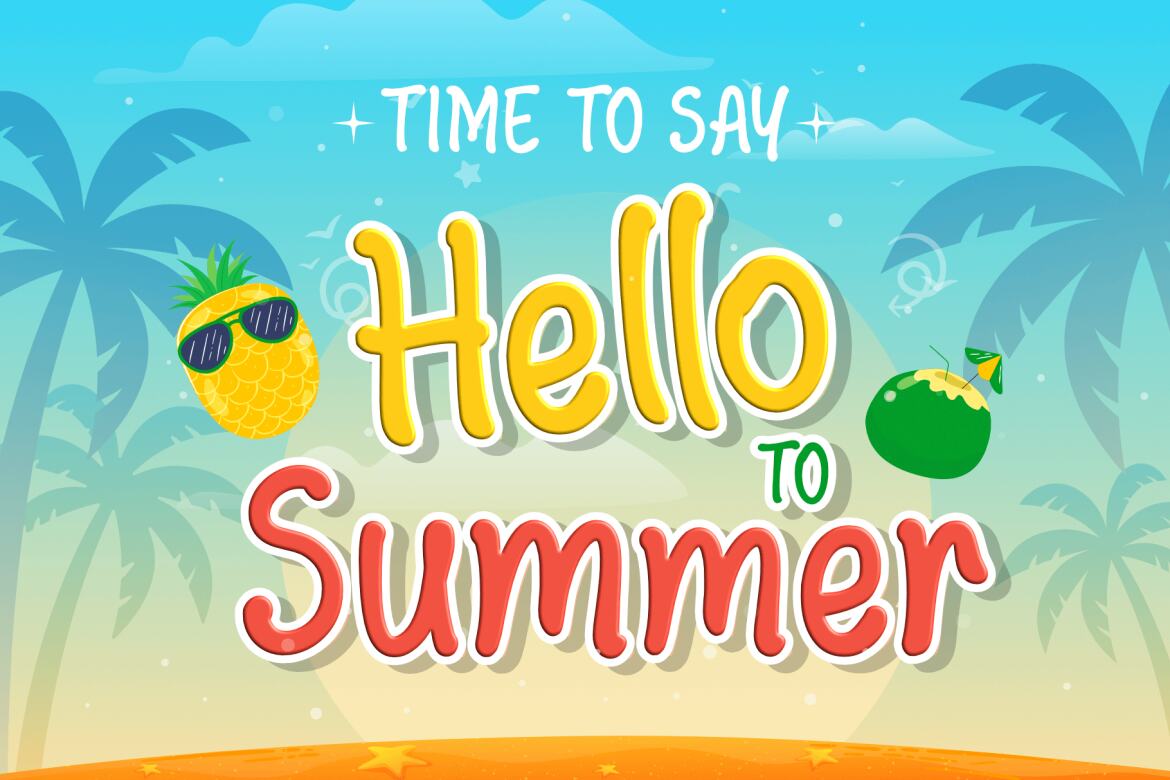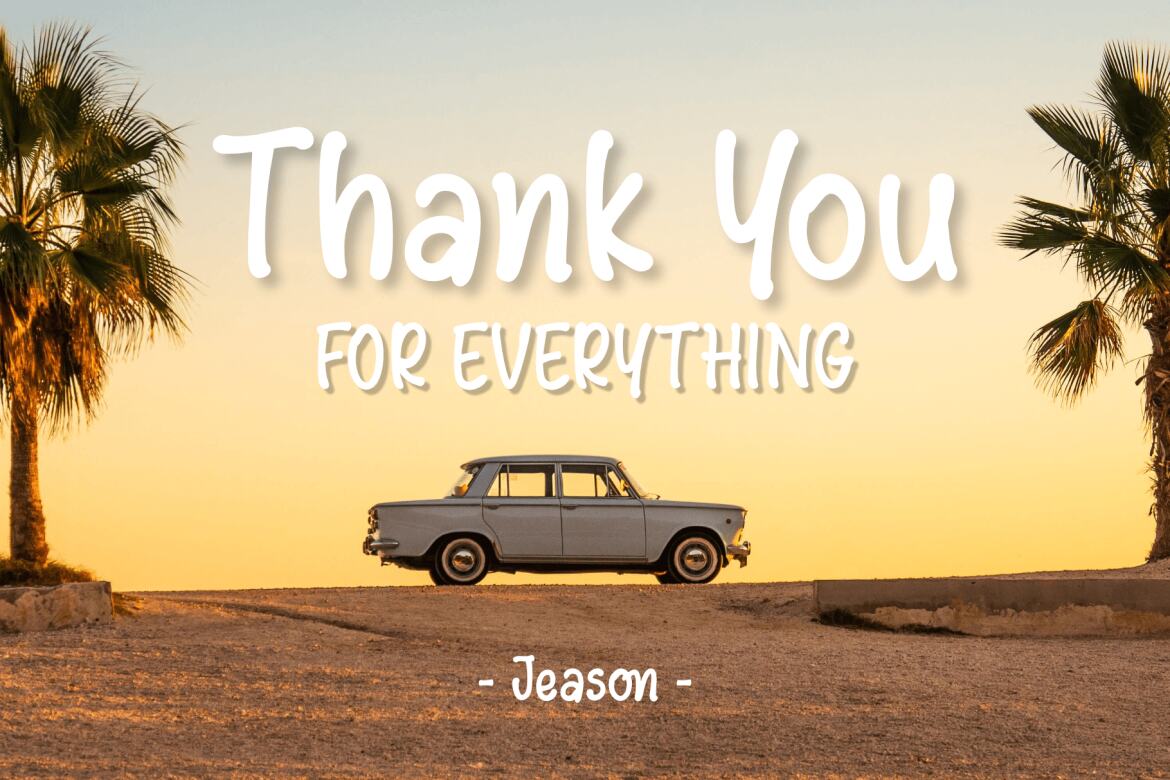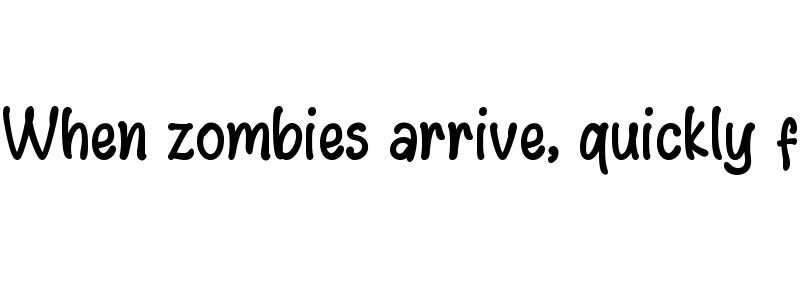
Jeason
Jeason - Playful Typeface is a fun and colorful simple font made with in-app brushes.
Jeason is perfect for design, logos, social media, brands, advertising, product design, handwritten quotes, product packaging, headers, posters, merchandise, and other designs.
• Standard glyphs
• Ligature
• Multilingual Accent